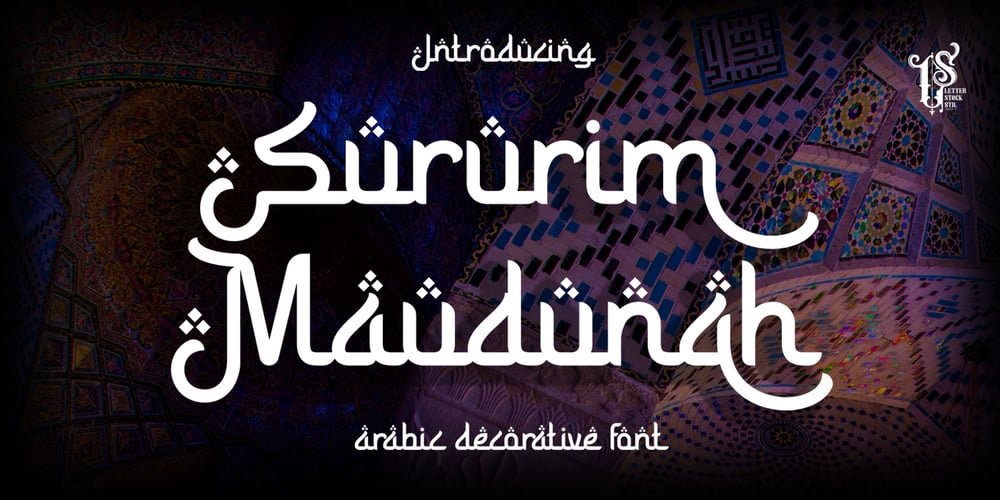
Sururim Maudunah Font Family was designed by Studio LetterStock and published by LetterStock. Sururim Maudunah contains 1 styles and family package options. Sururim Maudunah is an arabic decorative font that has a middle east style font, and it was crafted by hand to add a natural handmade feeling and i make it clean with pentool.If you looking for decorative font with arabic style for your title or even branding and logotype, Sururim Maudunah is a great choice for that purpose.Opentype featuresSururim Maudunah font is very good looking in logotype, labels, decorative lettering, playful design, product packaging, invitation titled, advertising and others.This decorative font works with folowing languages:Afrikaans, Albanian, Asu, Basque, Bemba, Bena, Chiga, Cornish, Danish, English, Estonian, Filipino, Finnish, French, Friulian, Galician, Gusii, Indonesian, Irish, Italian, Kabuverdianu, Kalenjin, Kinyarwanda, Low German, Luo, Luxembourgish, Luyia, Machame, Makhuwa-Meetto, Makonde, Malagasy, Malay, Manx, Morisyen, North Ndebele, Norwegian Bokmål, Norwegian Nynorsk, Nyankole, Oromo, Portuguese, Romansh, Rombo, Rundi, Rwa, Samburu, Sango, Sangu, Scottish Gaelic, Sena, Shambala, Shona, Soga, Somali, Spanish, Swahili, Swedish, Swiss German, Taita, Teso, Vunjo, Zulu.Thank you for using this font.LS